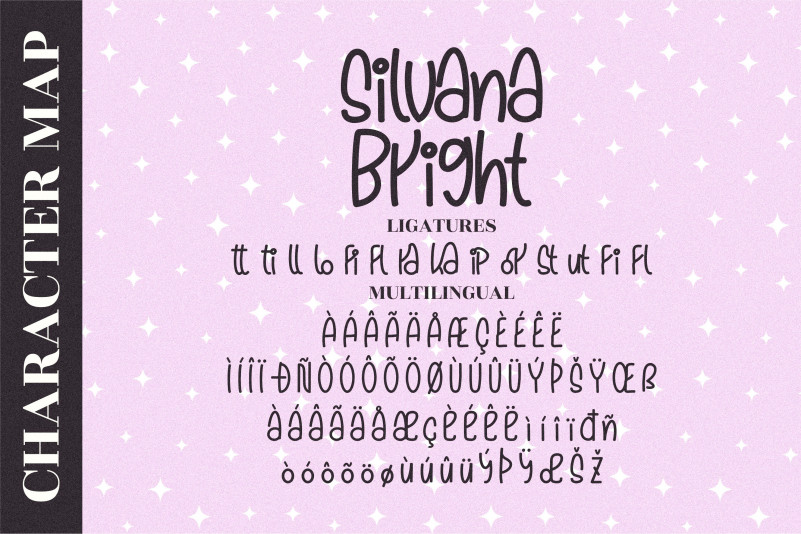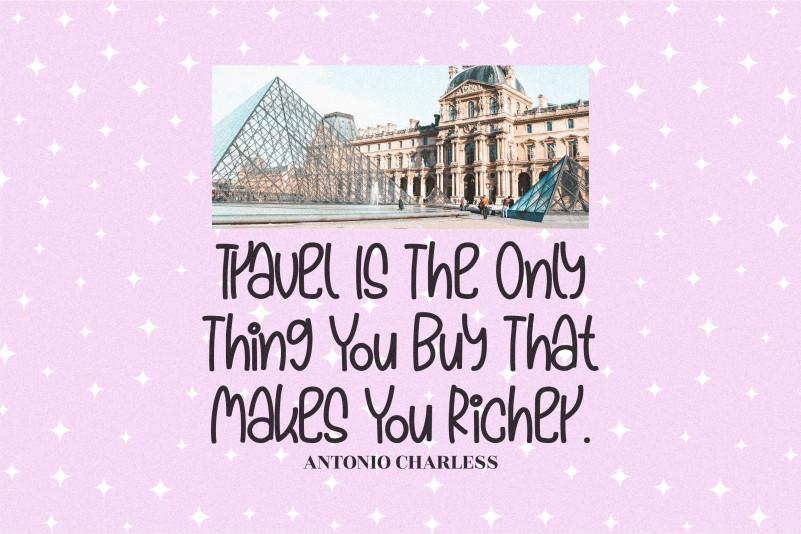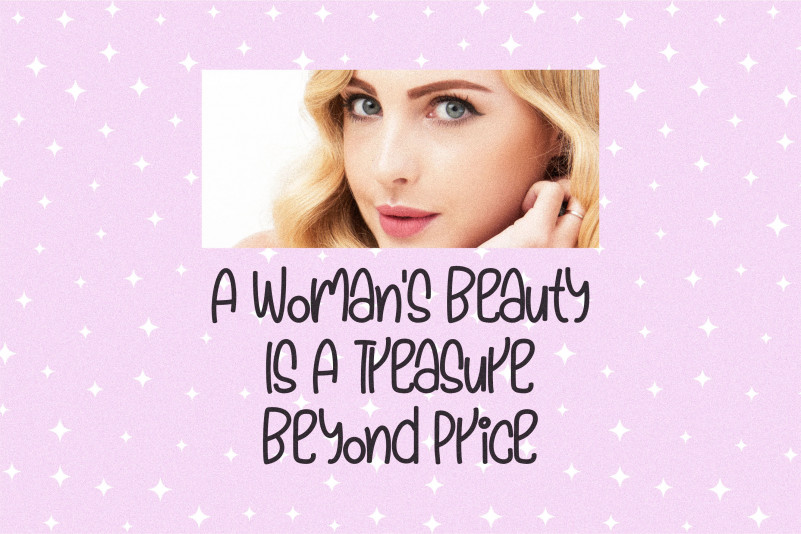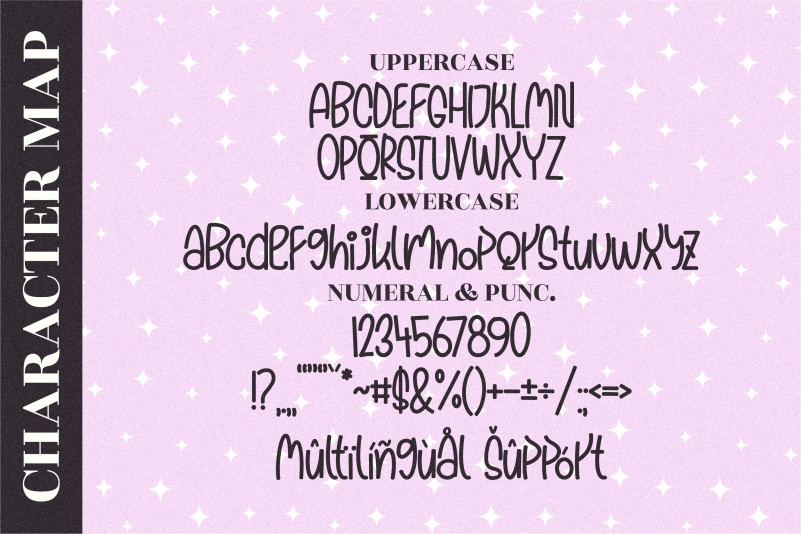
Silvana Bright Font
Silvana Bright Display Font
This is a fun and quirky handwritten font. Playful and with an interesting vibe, this font will look great in any design! Add this font to your favorite creative ideas and notice how it makes them come alive!